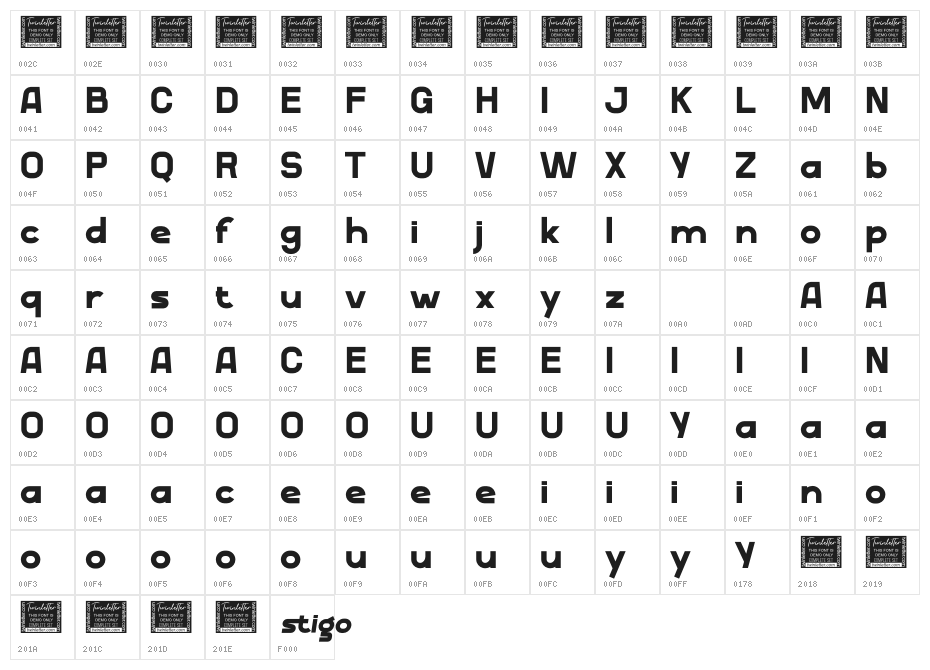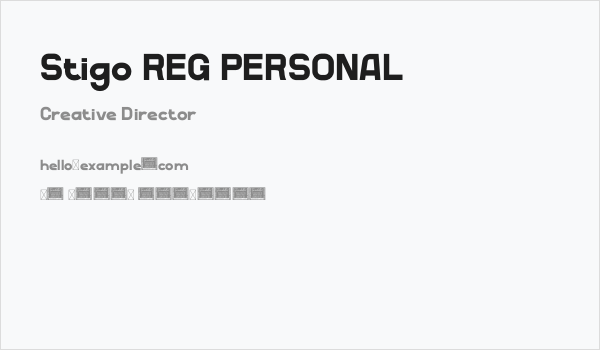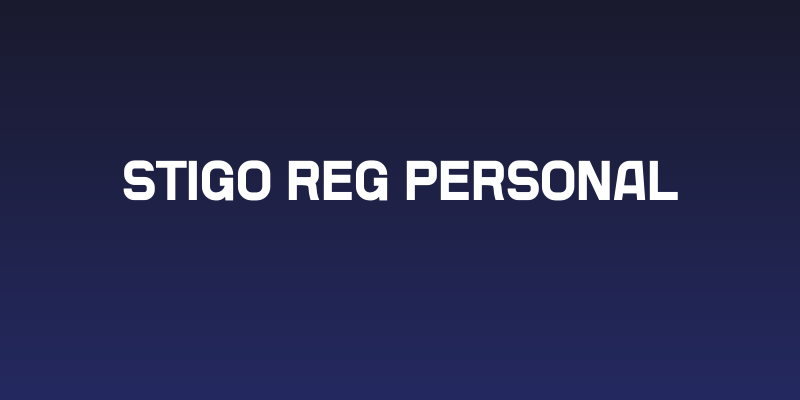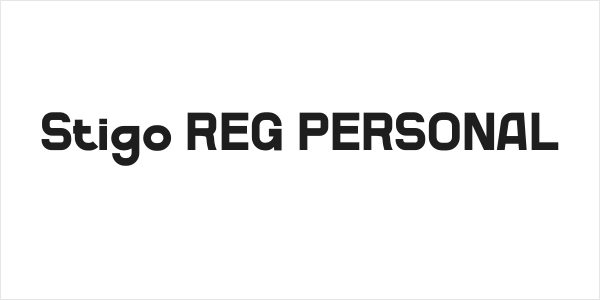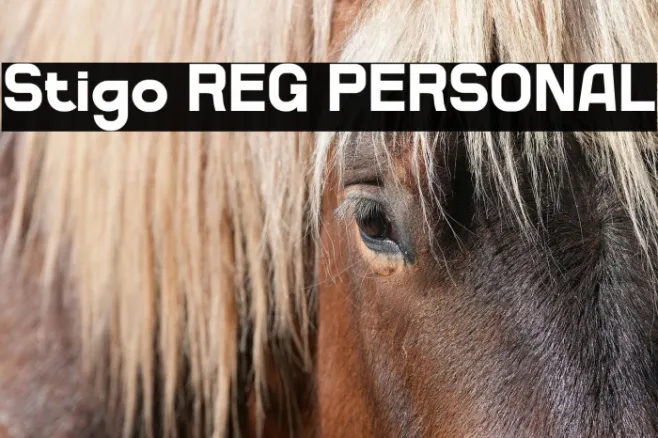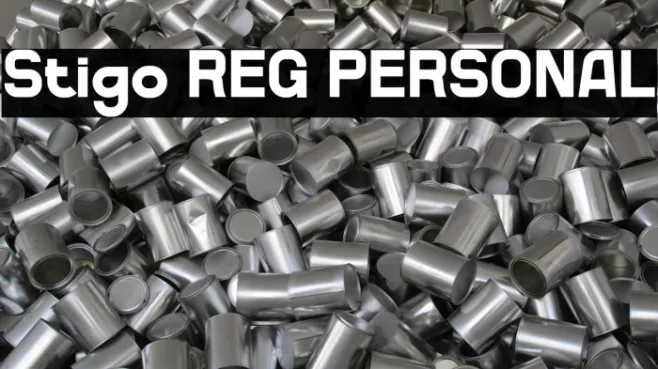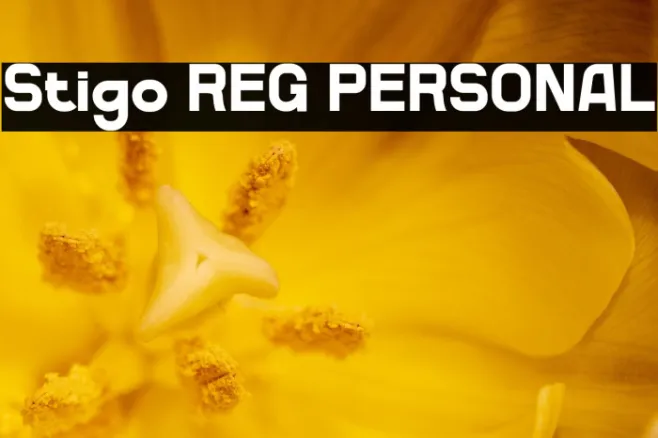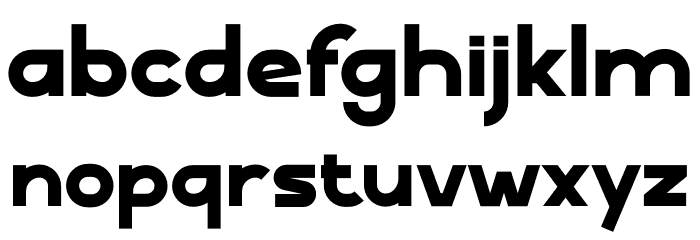
Stigo REG PERSONAL Font
Stigo REG PERSONAL Description
This font features a bold and modern design with clean, geometric lines. The uppercase letters are strong and assertive, while the lowercase letters maintain a consistent style with slightly rounded edges, giving a friendly yet professional appearance. The numerals are clear and easy to read, making them suitable for various applications. The special characters are well-integrated, maintaining the overall aesthetic of the font. Its versatility makes it ideal for both digital and print media, offering a contemporary look that stands out.
| Proposed Projects | Ideal for branding, advertising, headlines, and digital media projects. |